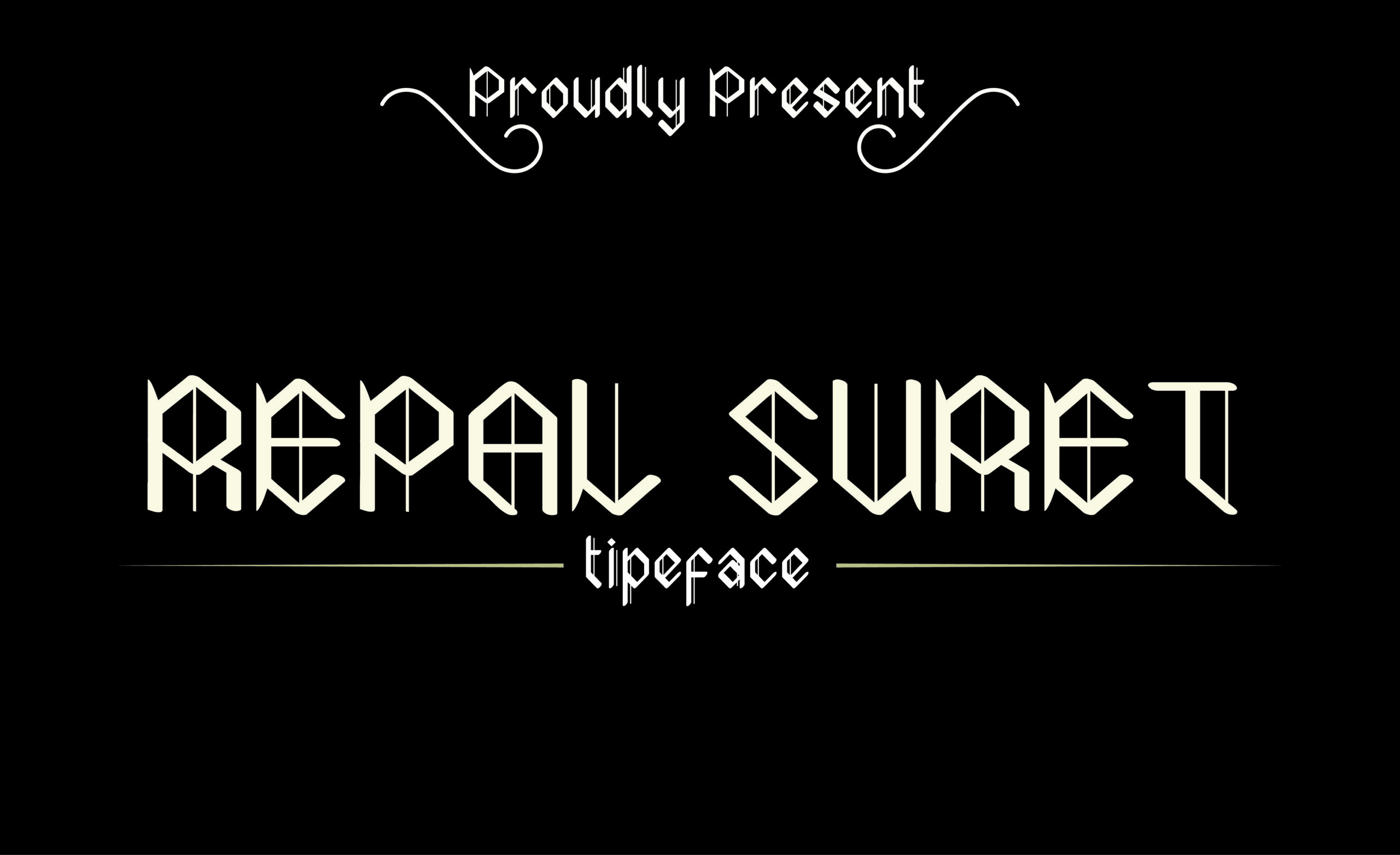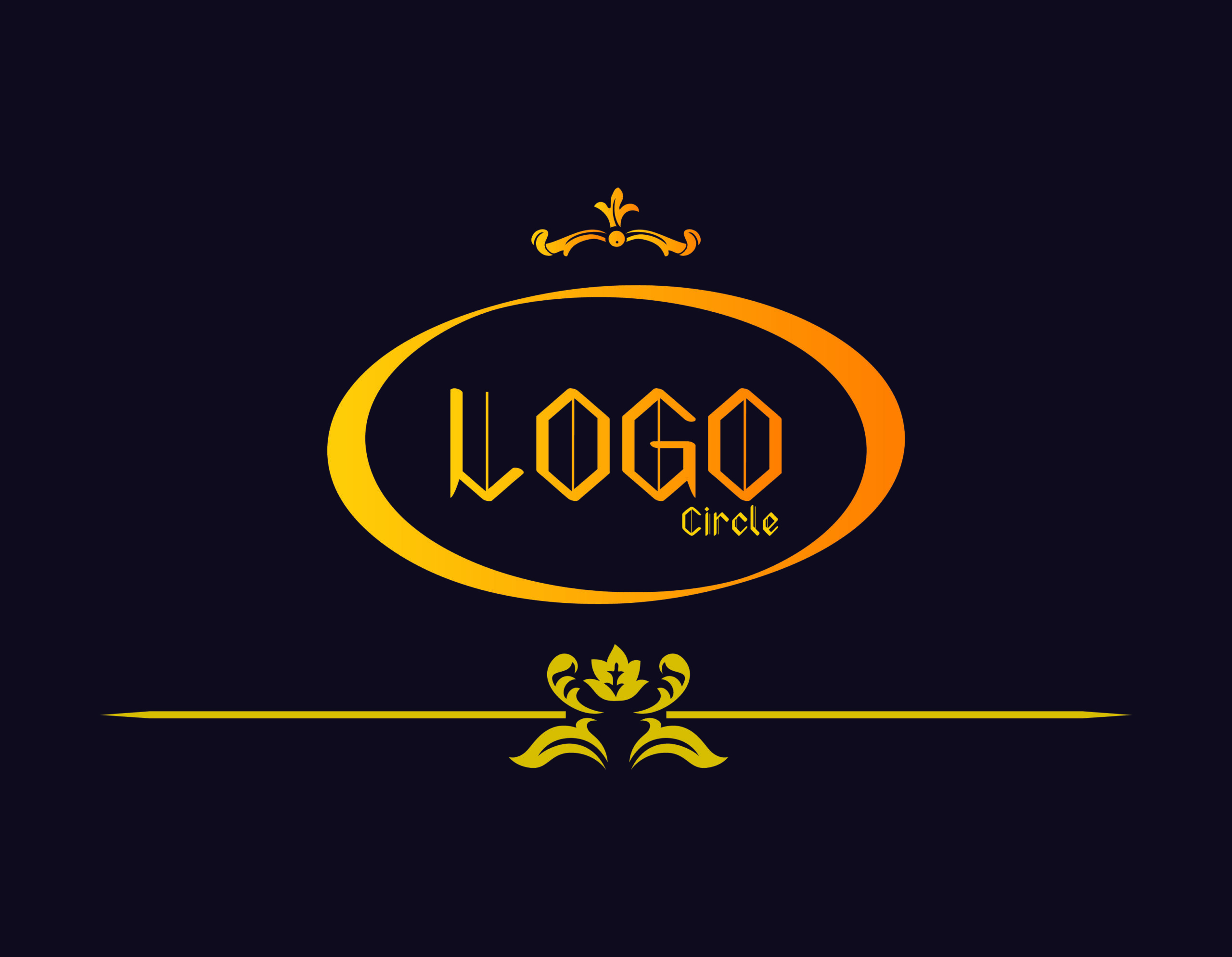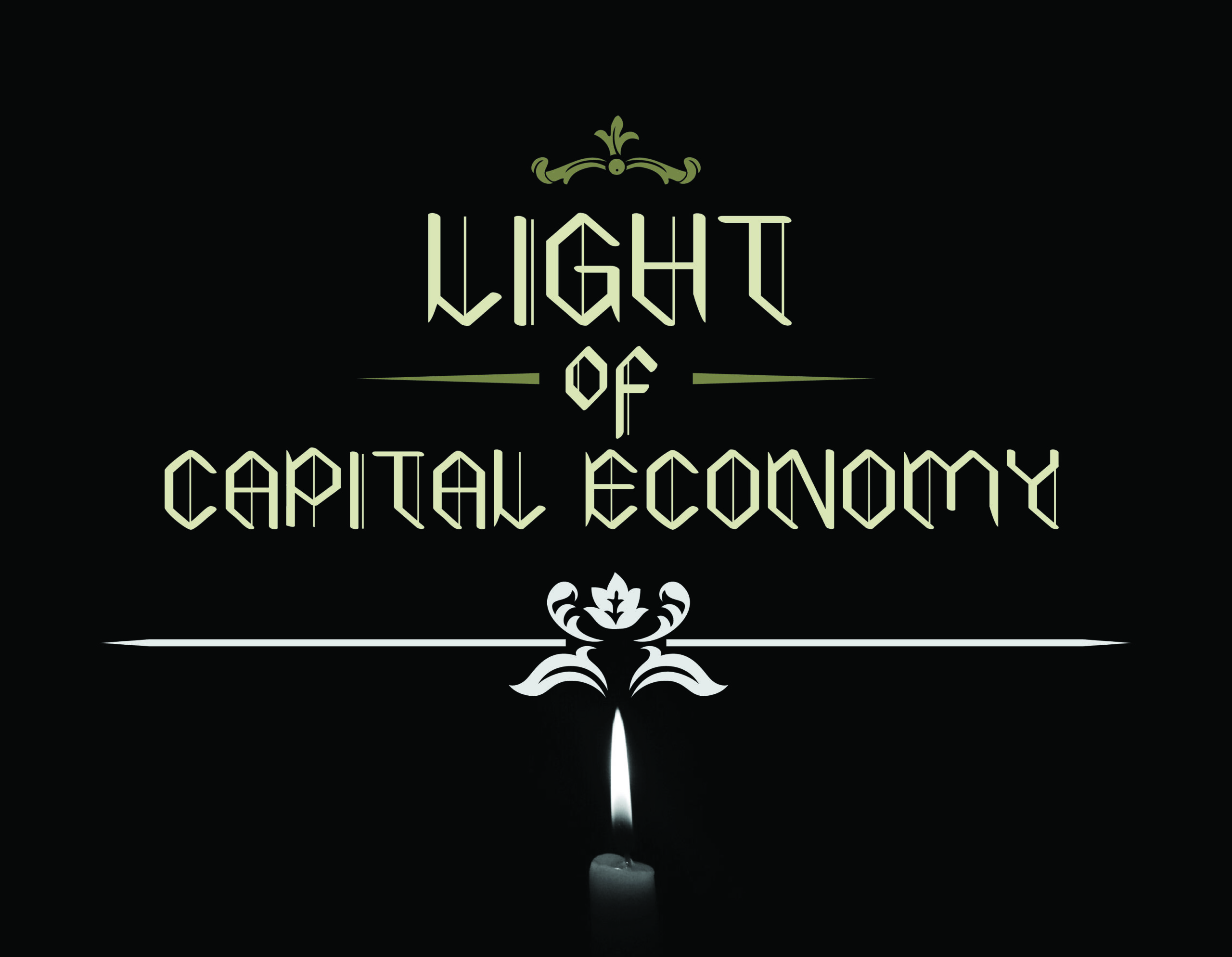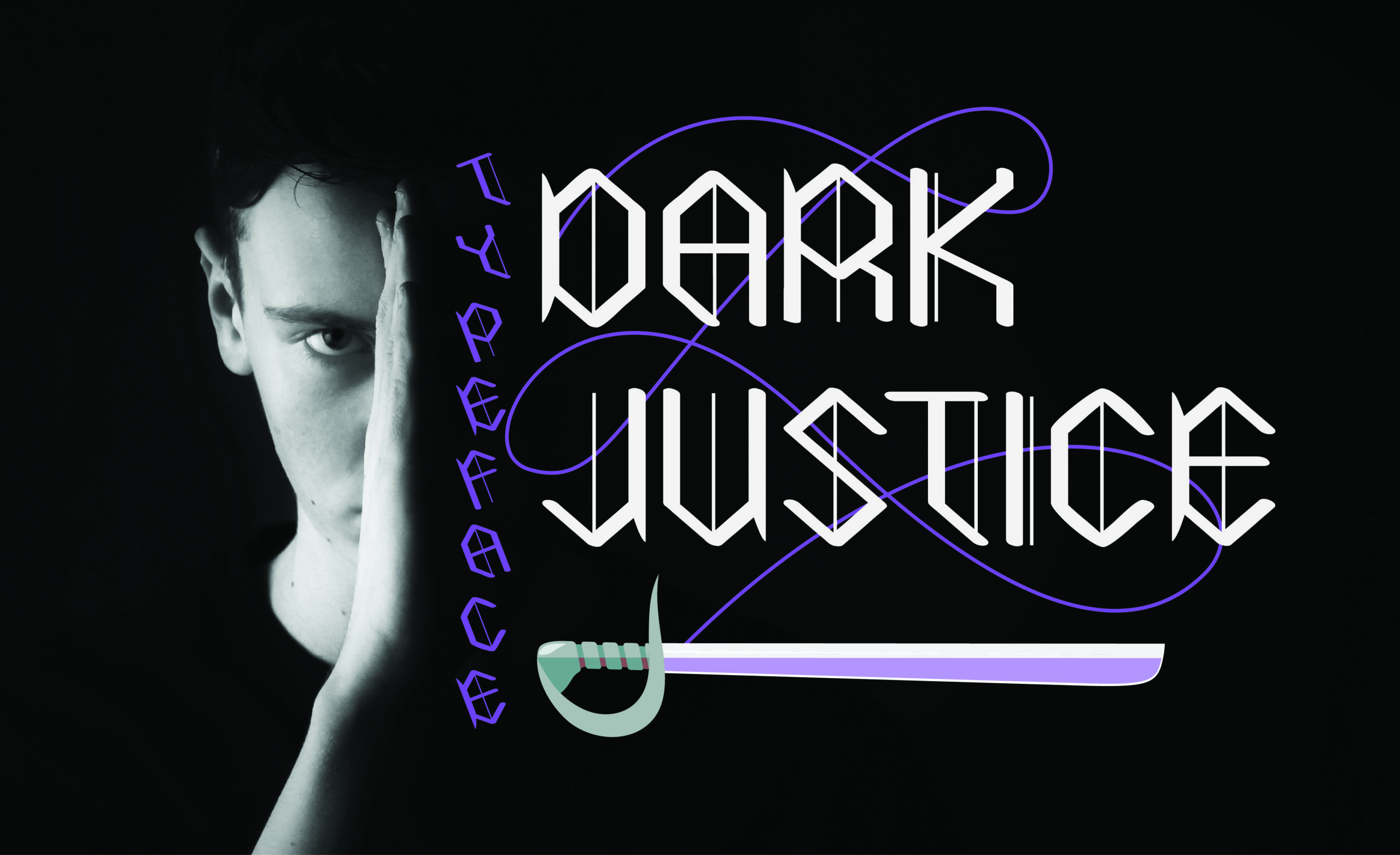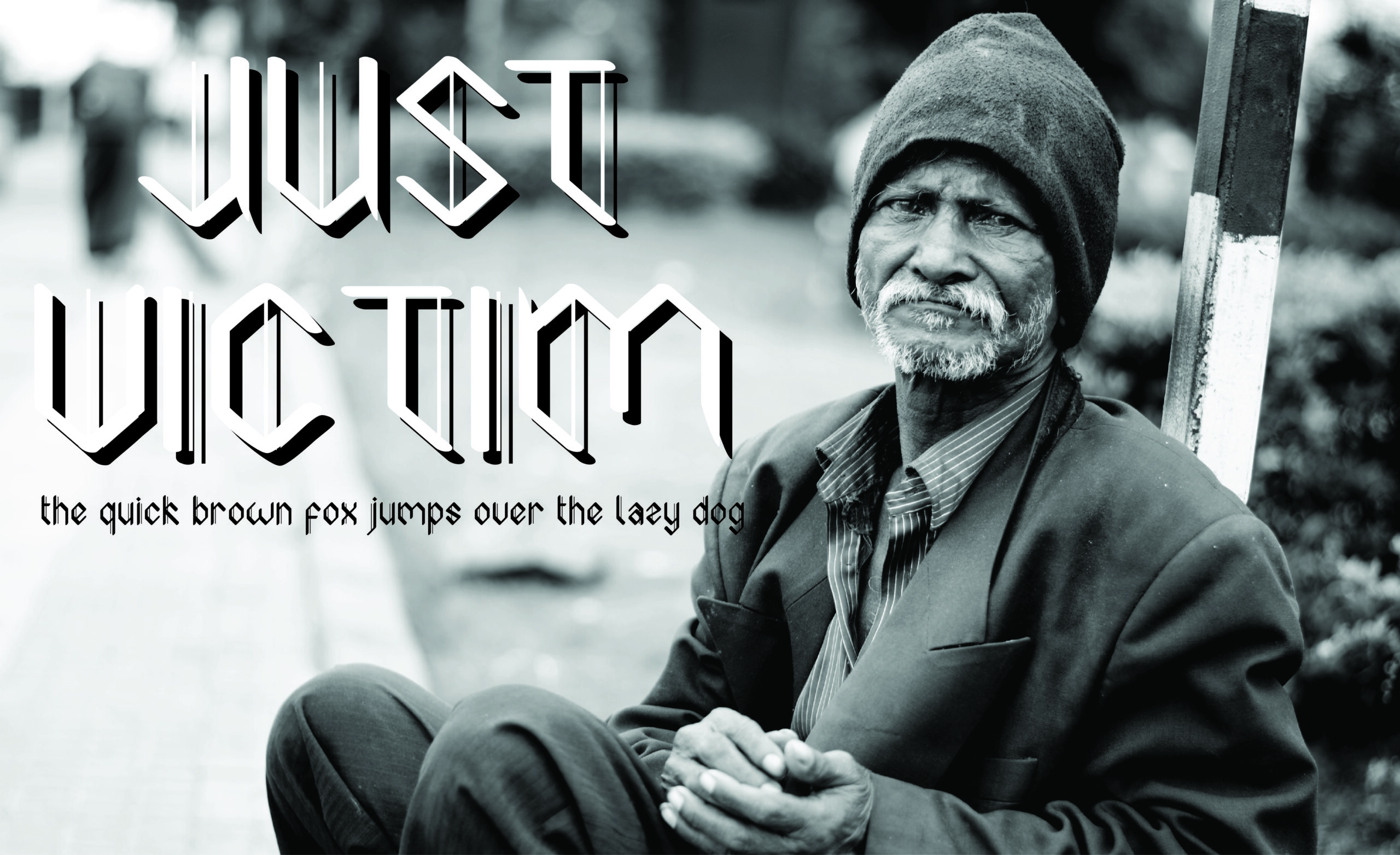
Repal Suret Font
About Repal Suret Font
Repal Suret is a font with an old school elegance, perfect for giving your designs a classical yet vintage style. This font excels in dark themes, and can elevate any branding project with its on trend blackletter formations.